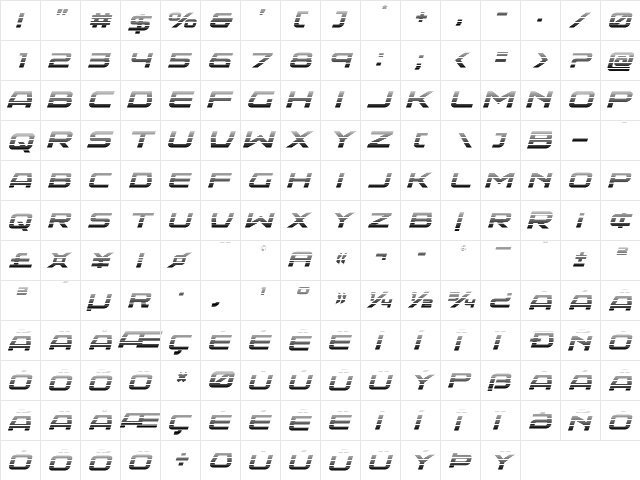
Neutron Dance Gradient Italic Regular
Design Context for Neutron Dance Gradient Italic Typeface
Neutron Dance Gradient Italic is a composed and adaptable typeface that performs quietly and consistently across a wide range of design contexts. Its italic angle brings a sense of urgency and motion to the letterforms.
Pro Tip: Try Neutron Dance Gradient Italic for annotation and caption copy alongside an upright companion — the contrast in angle creates a dynamic but ordered typographic system.